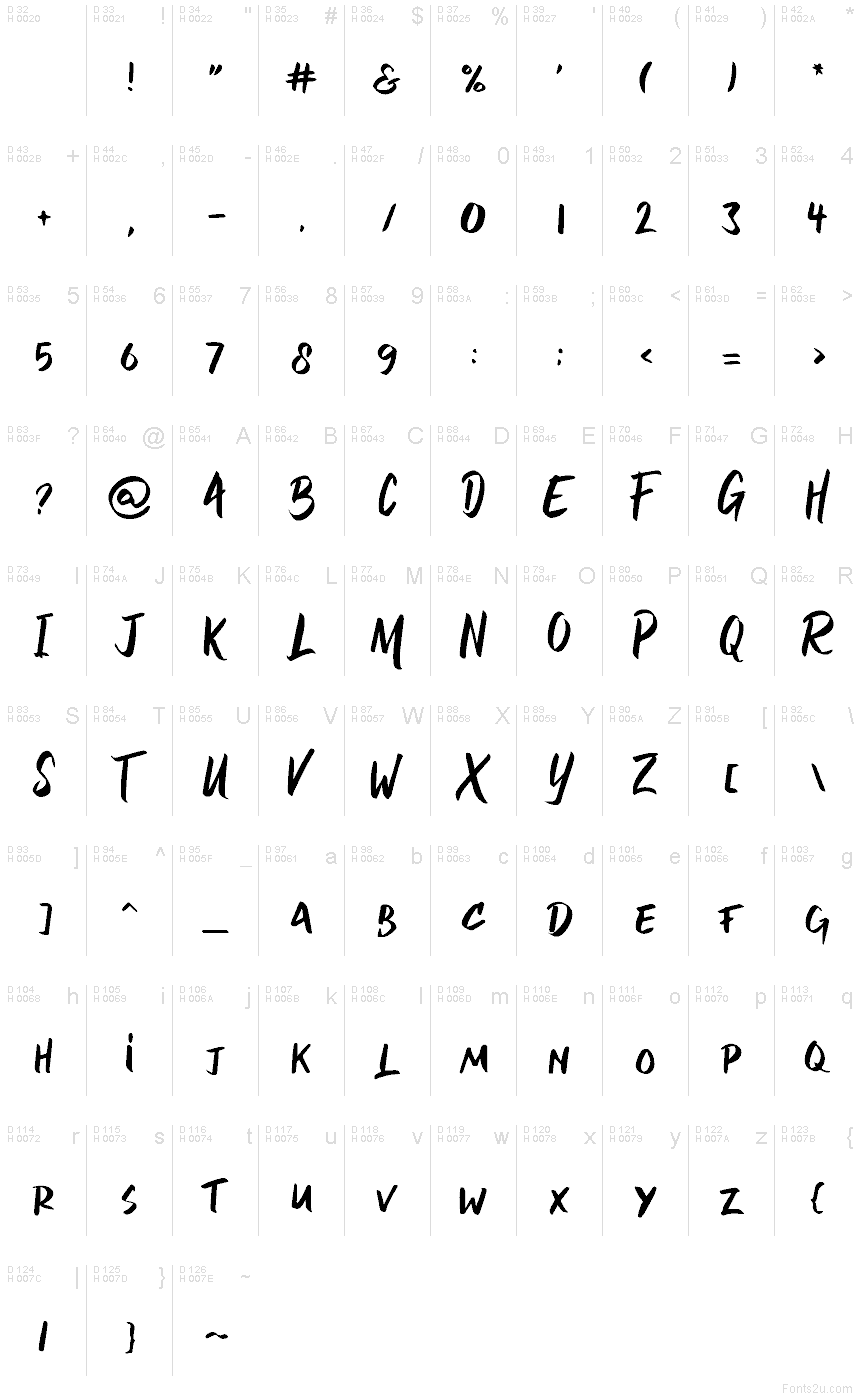
Friendly Stranger
Friendly Stranger font by Excellent Ritma Florendia is a free handwritten font that introduces contemporary style and artistic appeal to users. With brush-like texture, casual elegance, and expressive flair, the font guarantees the uniqueness of what you will create using it.
Friendly Stranger is perfect for social media posts, brand types, posters, merchandise packaging, headlines, and t-shirts.
Features include:
- Uppercase Letters
- Alternative Lowercase Letters
- Numbers and Punctuation